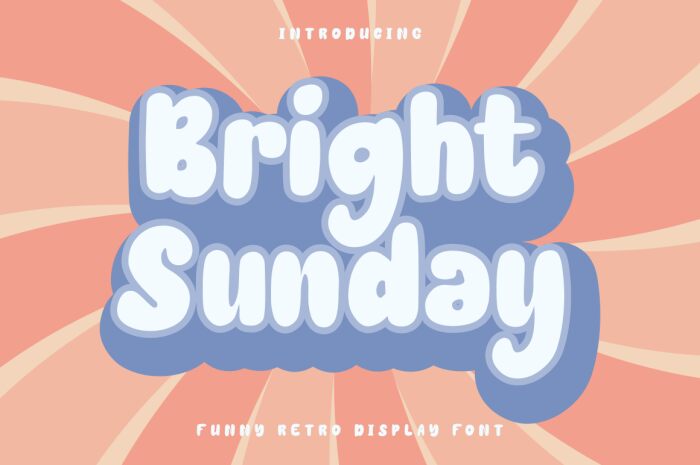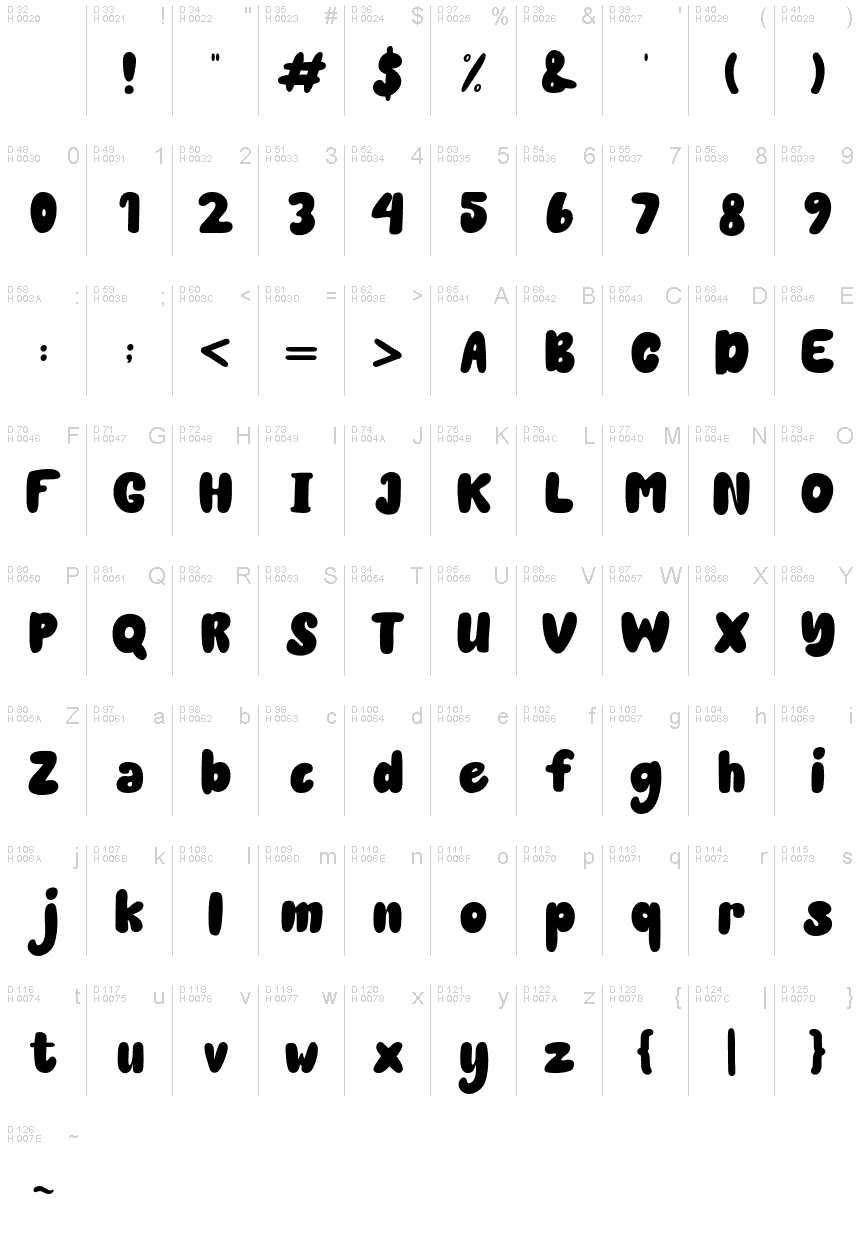
Bright Sunday
Bright Sunday is a bold and playful display font designed by Rissyletter Studio. With its cartoon-like style, this font adds a vibrant and joyful touch to any project.
Its bold weight makes it perfect for creating eye-catching headlines, logos, and packaging designs that need to stand out from the crowd. Whether you're working on children's books, party invitations, or even website banners, Bright Sunday is the font that will bring your designs to life with its whimsical charm.
Let your creativity shine with this delightful typeface!